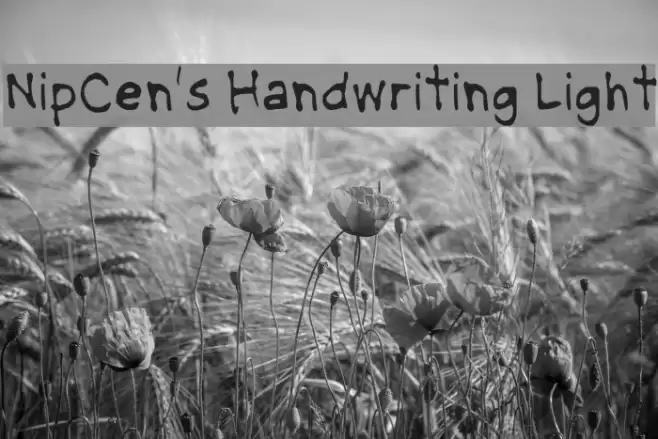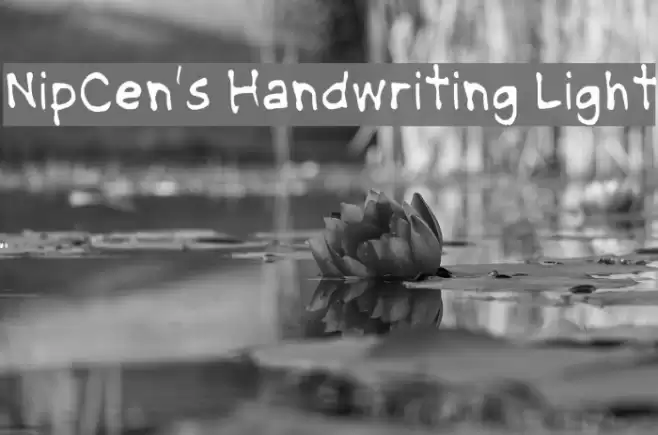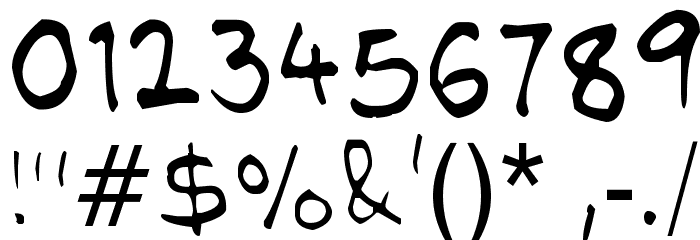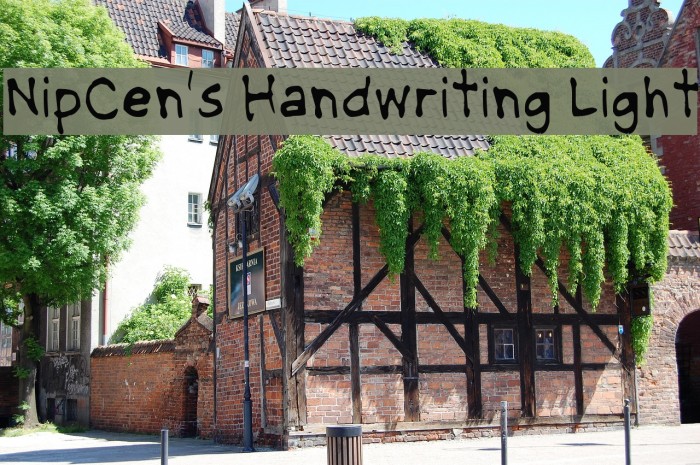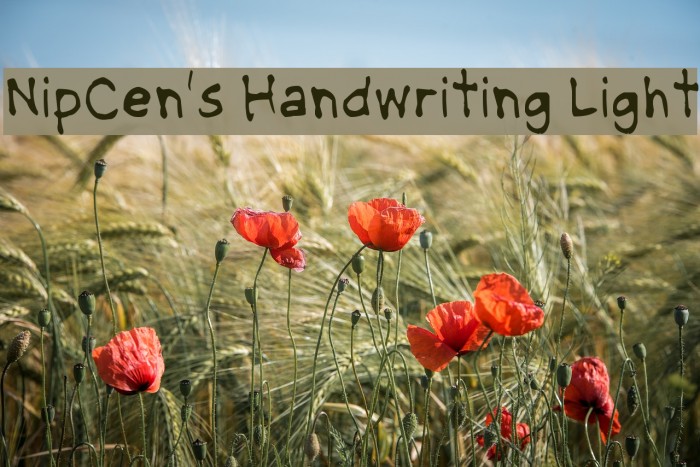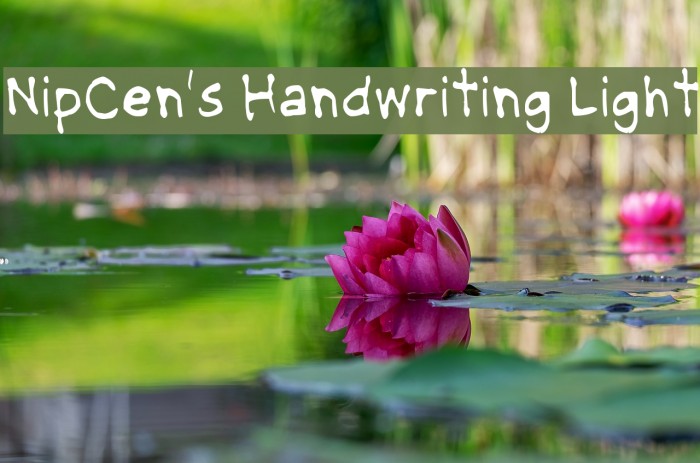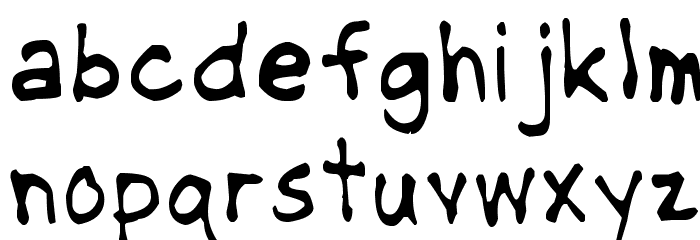
NipCen's Handwriting Light Font
NipCen's Handwriting Light Description
This font exudes a playful and casual handwritten style, characterized by its irregular and organic letterforms. Each character appears as if it were drawn with a marker, giving it a personal and informal touch. The strokes are uneven, adding to the authenticity of a handwritten note. The font maintains a consistent baseline, but the varying heights and widths of the letters contribute to its dynamic appearance. The numerals and special characters follow the same whimsical style, making it suitable for creative and informal projects. Its unique charm lies in its ability to convey a sense of spontaneity and friendliness.
A playful, handwritten font with irregular, marker-like strokes from Uncategorized fonts.
- Proposed Projects: Ideal for greeting cards, children's books, casual invitations, and personal blogs.
- Overall Style: Casual
- Use Case: Headlines, Informal text, Creative projects